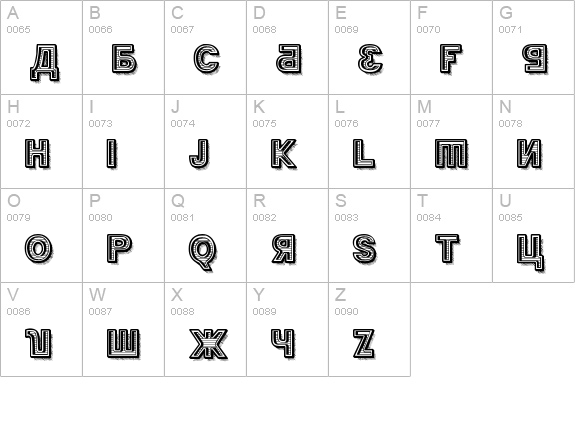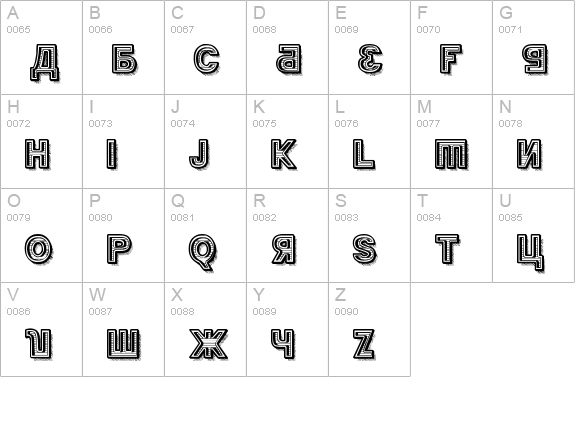
Kremlin Minister Black 3D Bold is a maximum-weight, dramatic variant in the Kremlin typeface family \xE2\x80\x94 well suited to maximum-impact headlines, posters, and packaging.
Introducing Kremlin Minister Black 3D Bold, a powerful and striking font that exudes confidence and authority. With its bold and three-dimensional design, this font is perfect for creating eye-catching headlines, titles, and logos that demand attention. Kremlin Minister Black 3D Bold is a versatile typeface that combines elegance and modernity, making it suitable for a wide range of design projects. Whether you're working on a corporate presentation, branding materials, or even a website, this font will add a touch of sophistication and professionalism to your work. What sets Kremlin Minister Black 3D Bold apart is not only its impeccable design but also the fact that it is freely available to download at FontsMarket.com. Yes, you read that right - this font can be yours without any cost. FontsMarket.com is dedicated to providing designers and creatives with high-quality fonts that can be used for personal and commercial projects, all for free. Don't miss out on the opportunity to enhance your designs with Kremlin Minister Black 3D Bold. Download it today from FontsMarket.com and elevate your typography game to new heights.